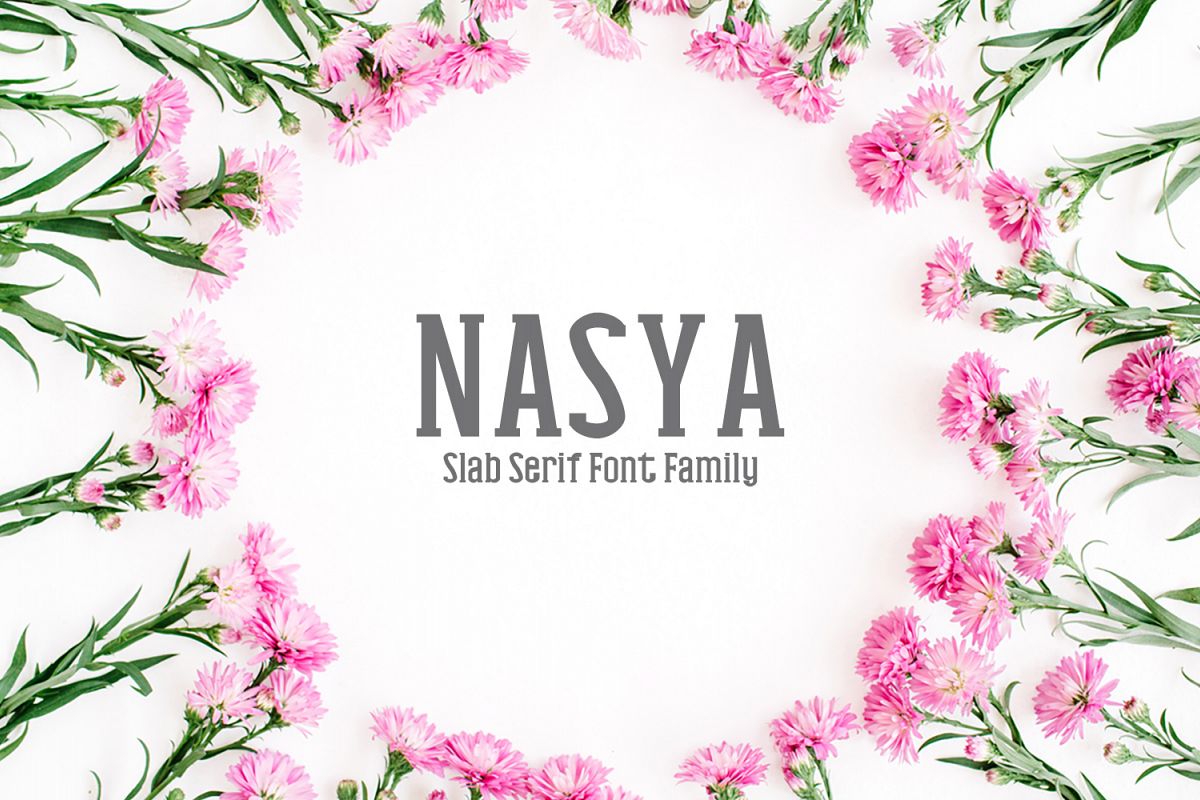
Nasya Slab Serif 4 Font Family Pack
Nasya is a modern slab serif font. It comes in 4 weights, basic alphabet letters, punctuation marks, alternatives. It's best for quotes, invitations, poster, flyer, blog, websites, banners, apparel, greeting card, wedding invitation, headlines, posters, banners, apparel, packaging, logos or magazines just to name a few.
Included Features:
• Font Weight: Regular, Light, Thin, and Bold
Nasya Font Features:
• Uppercase Multilingual Letters
• Lowercase Multilingual Letters
• Alternative